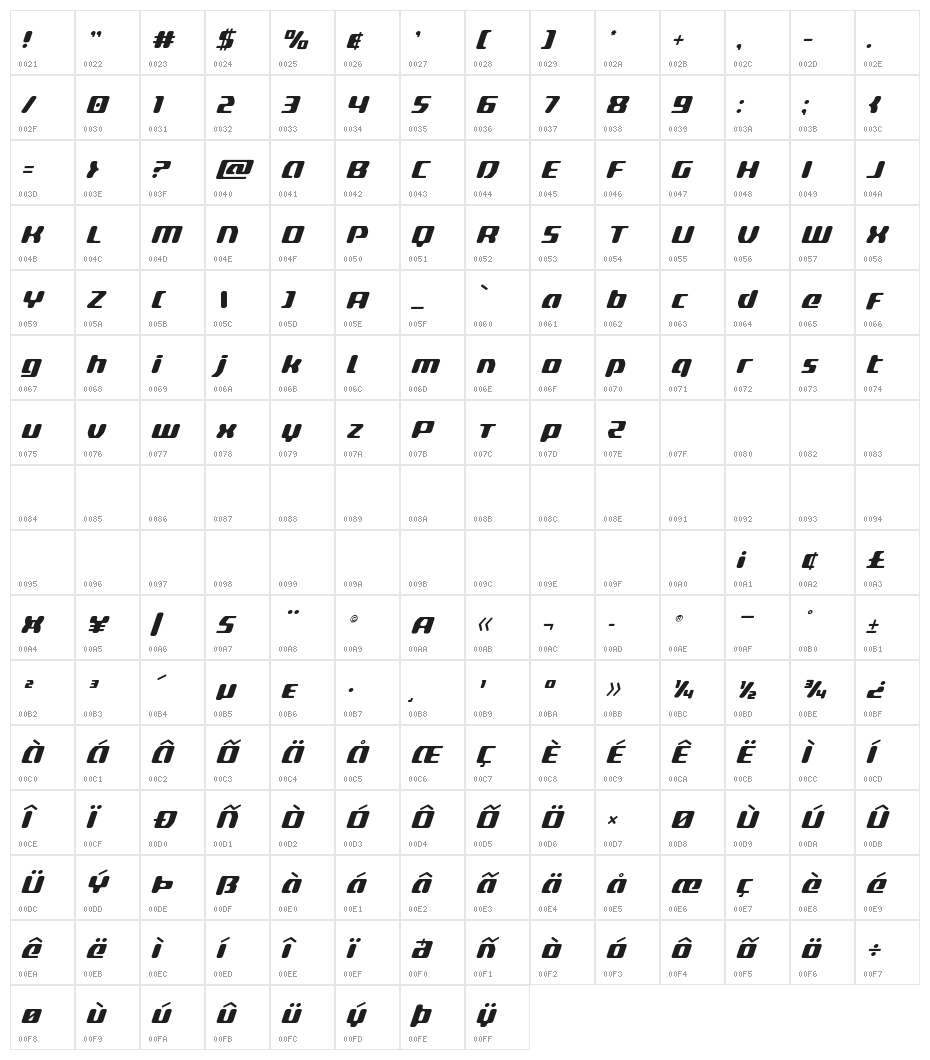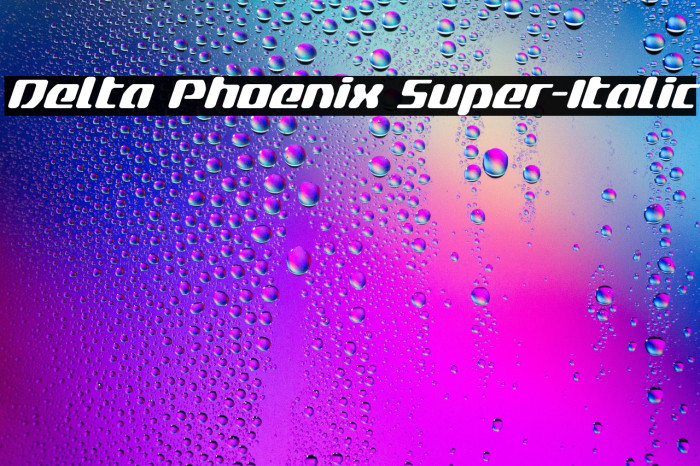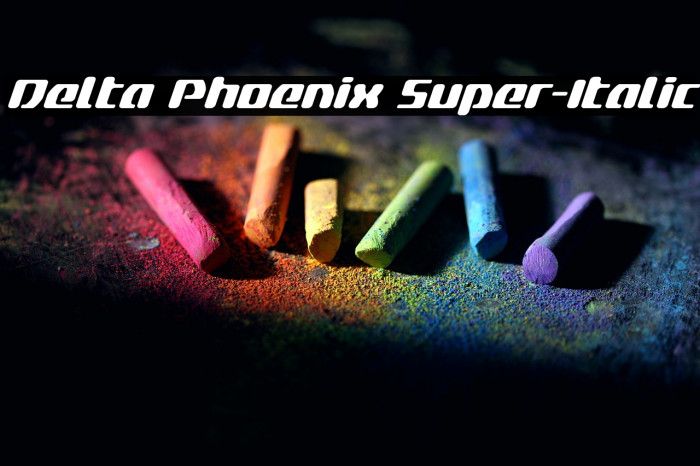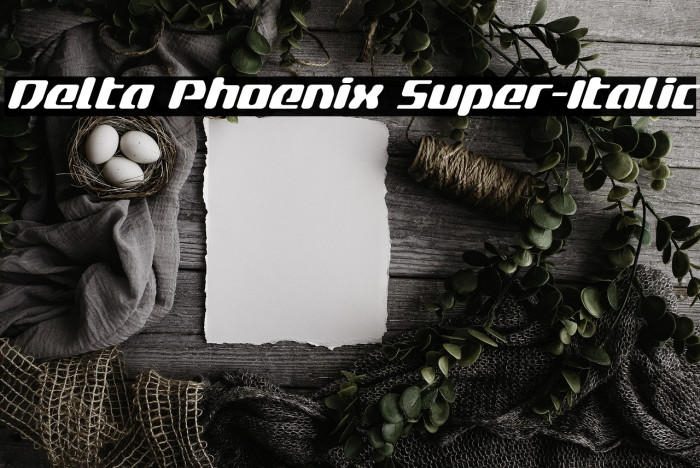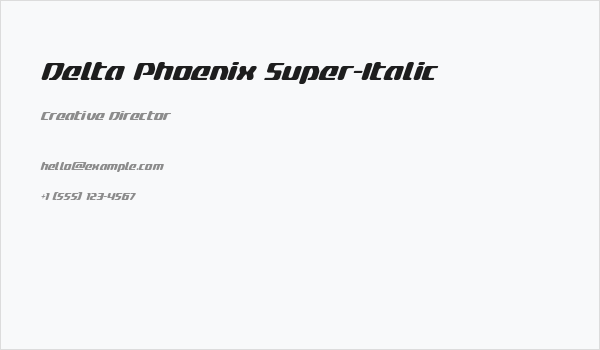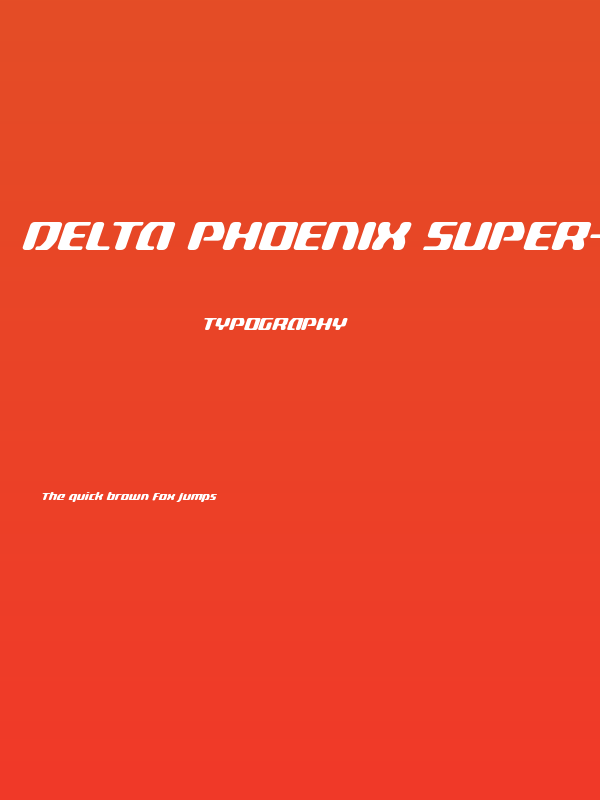
Delta Phoenix Super-Italic Font
Delta Phoenix Super-Italic Description
This font exhibits a dynamic and futuristic style with a pronounced italic slant, giving it a sense of motion and speed. The characters are bold and slightly condensed, featuring smooth curves and sharp angles that create a sleek and modern appearance. The uppercase and lowercase letters maintain a consistent style, with the lowercase letters mirroring the uppercase in form but with a slightly reduced height. The numerals are distinct and maintain the same bold and italicized characteristics as the letters. Special characters are well-integrated, matching the overall aesthetic of the font. This font is ideal for projects that require a modern, energetic look.
| Use Case | Logos, Headlines |
| Proposed Projects | Ideal for branding, sports team logos, automotive designs, and tech-related projects. |